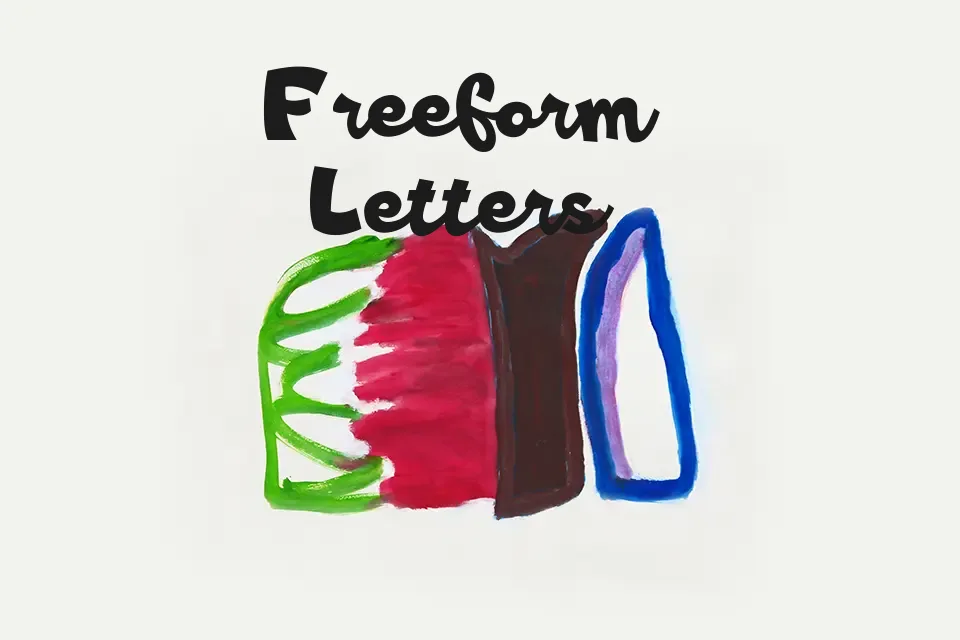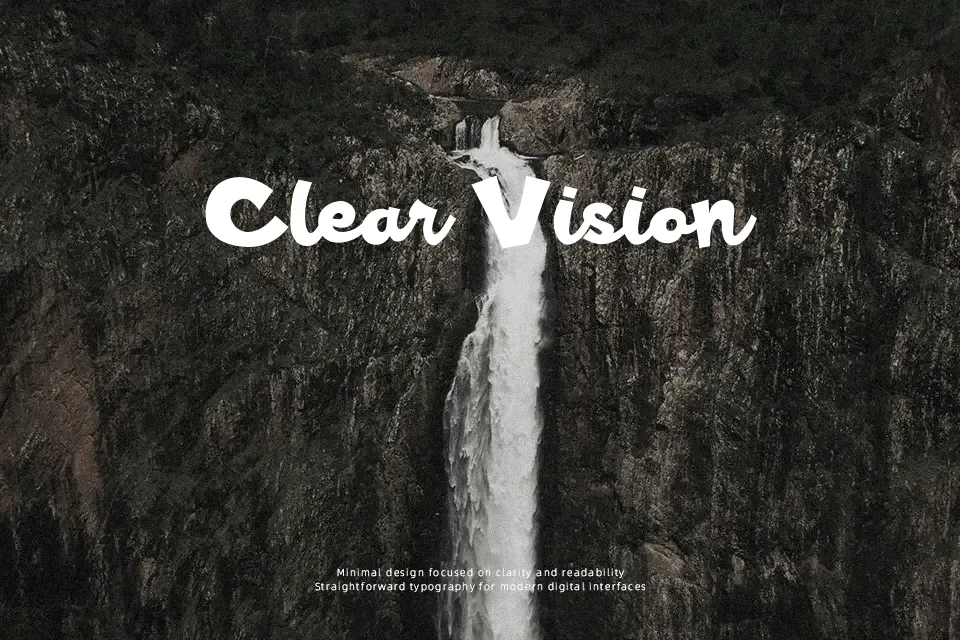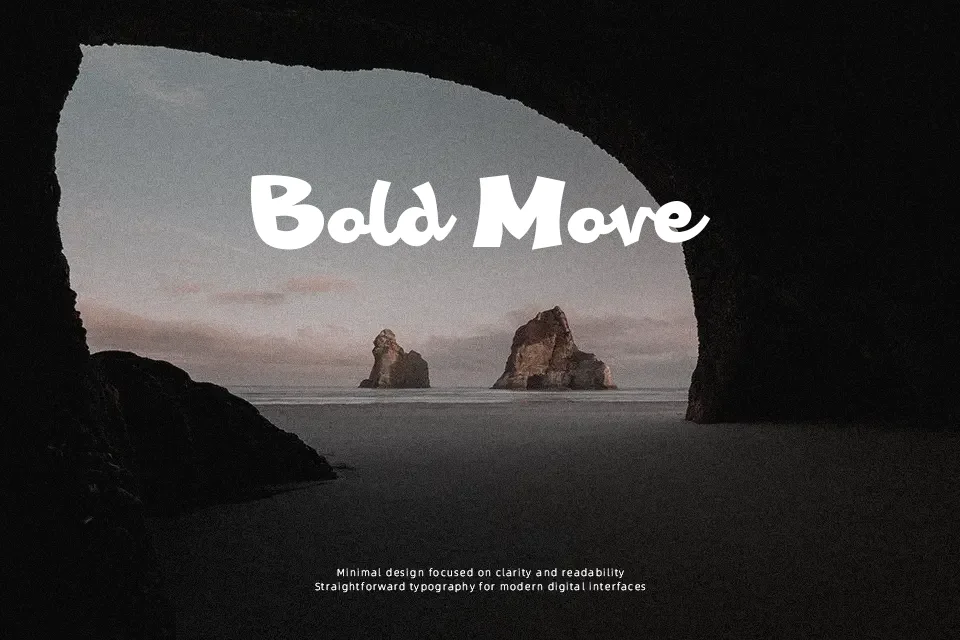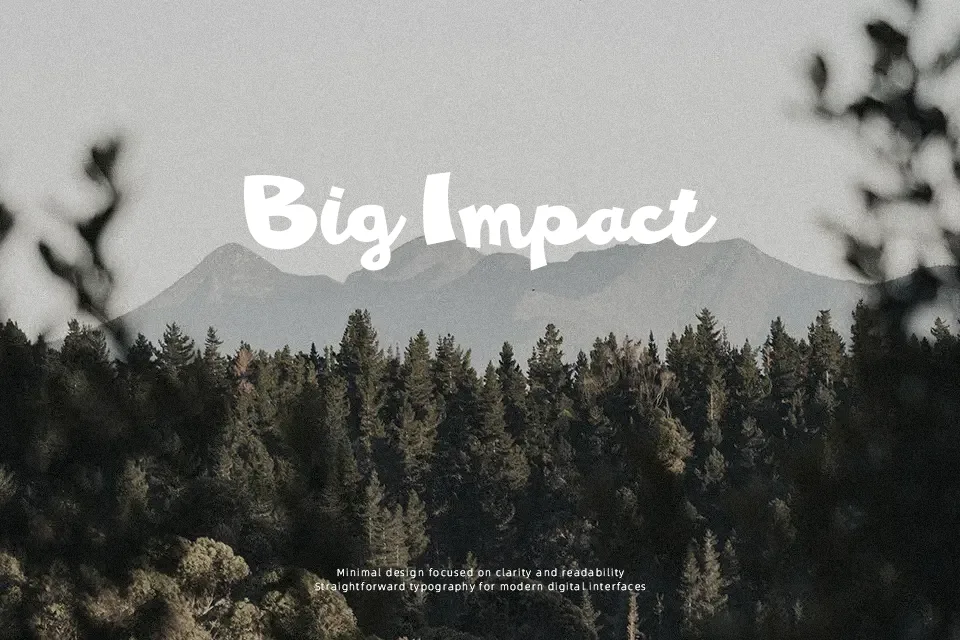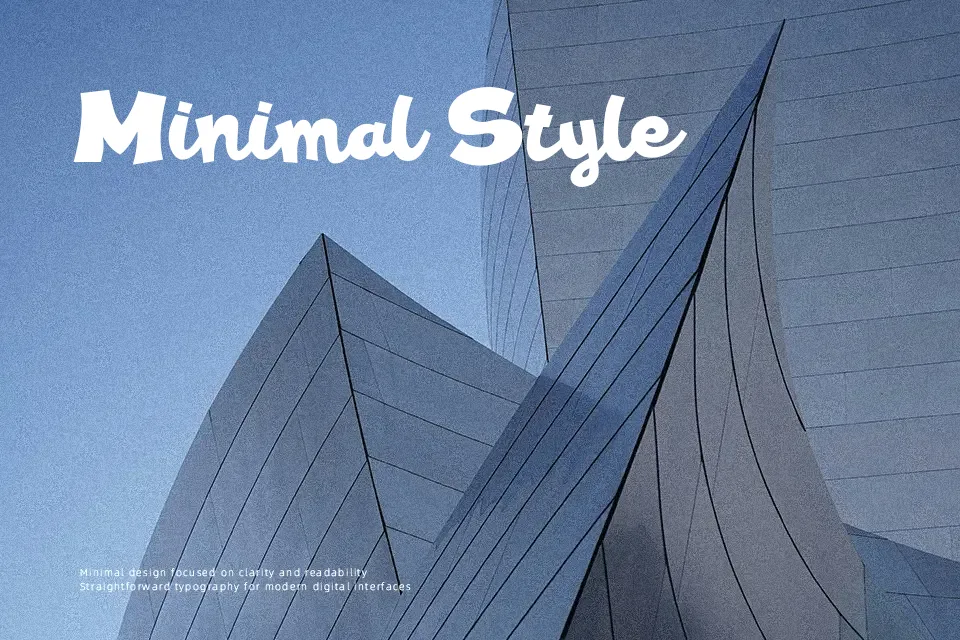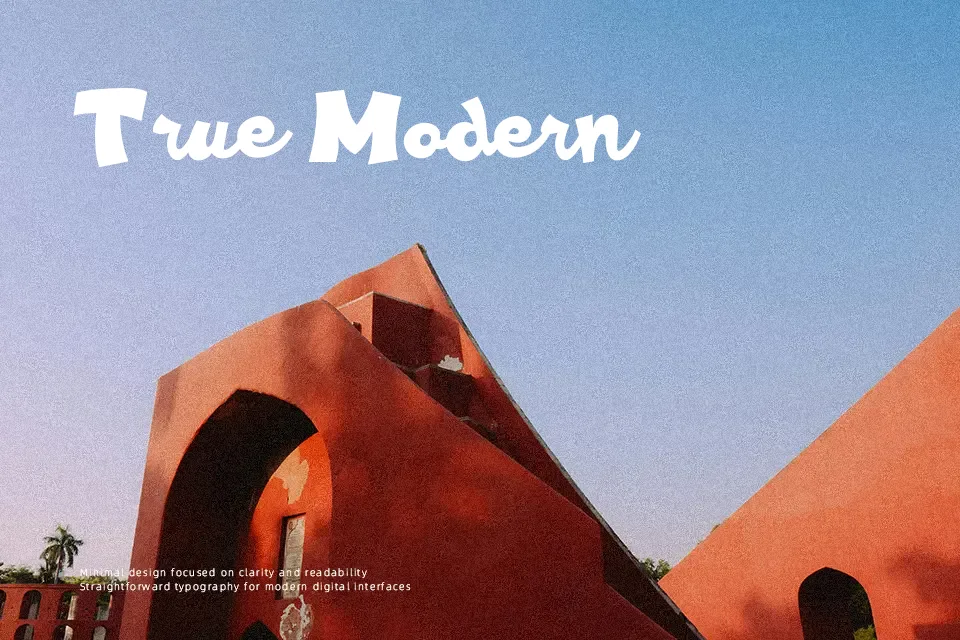
Ramesgo Font
A short product label or poster headline benefits from the cheerful, animated energy of Ramesgo Font. The letterforms display thick, uneven strokes and rounded terminals that emphasize its casual cartoon aesthetic. Its generous, slightly irregular spacing contributes to a bouncy, rhythmic baseline that captures immediate attention in large formats. The heavy stroke weight improves visibility in bold headers, while the playful proportions add character to any casual layout. However, these same decorative details become less effective at smaller sizes, making the typeface less suitable for dense, continuous reading. The generous spacing helps maintain clarity in larger headlines, ensuring the energetic design remains highly legible when used for impactful branding or vibrant packaging.
children’s book covers
vibrant product packaging
playful event posters
casual brand headlines
spreadsheet data
Perfect for branding, headline, and kids, with a bold and cartoon style.